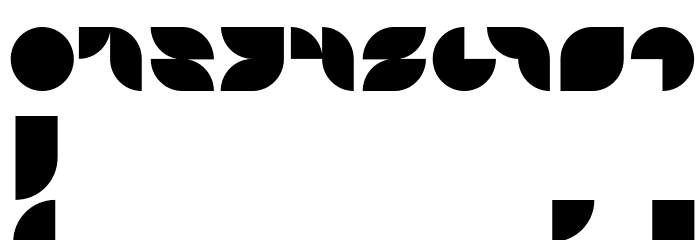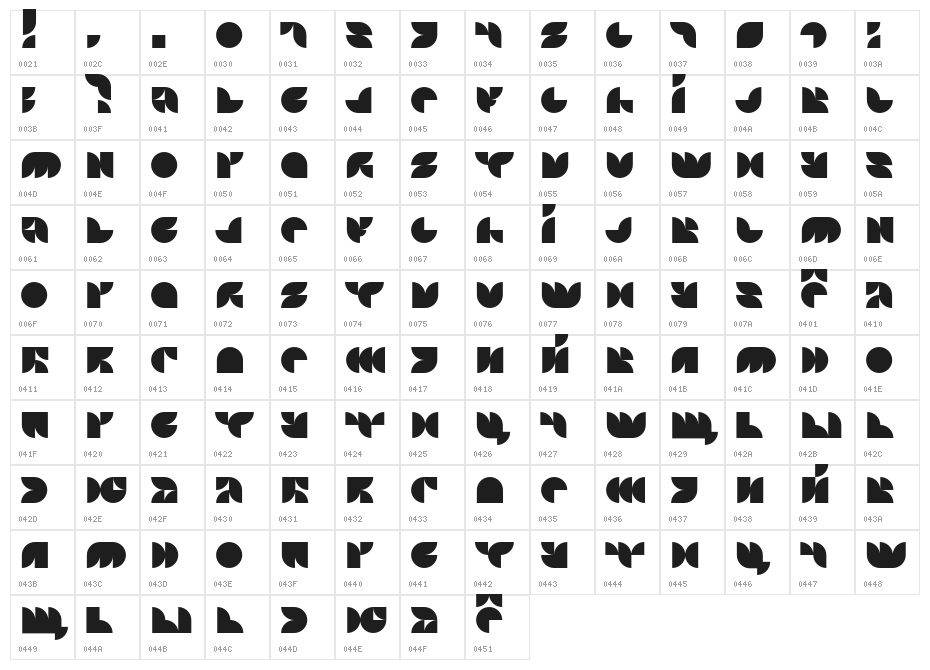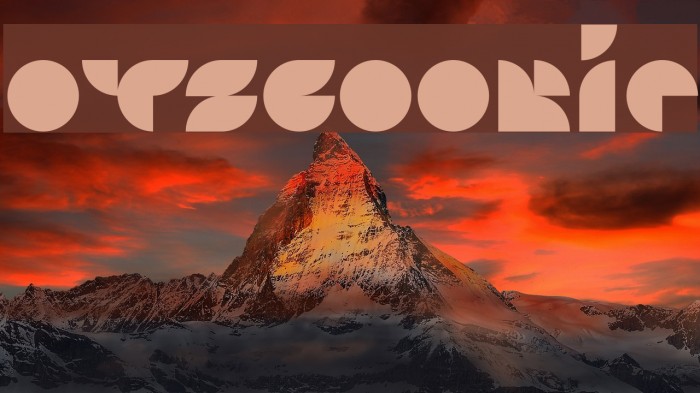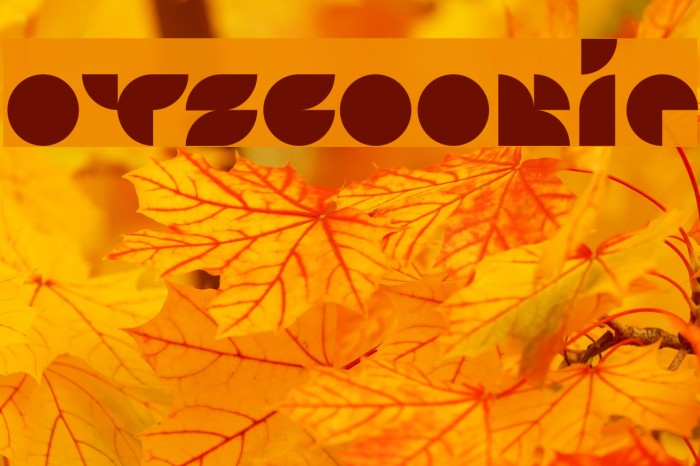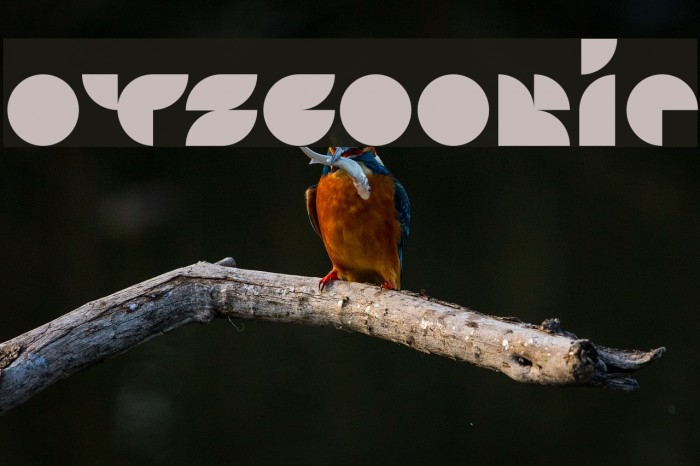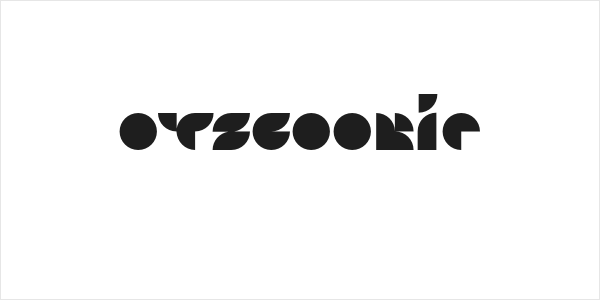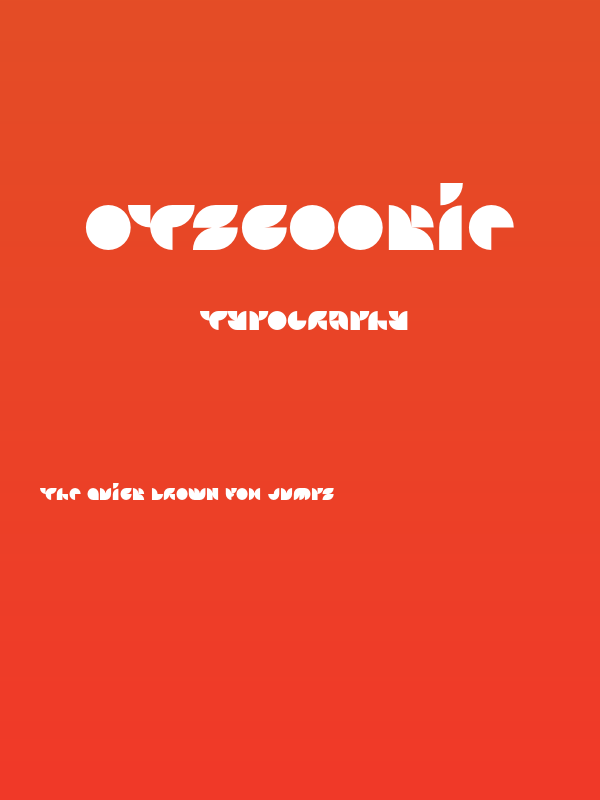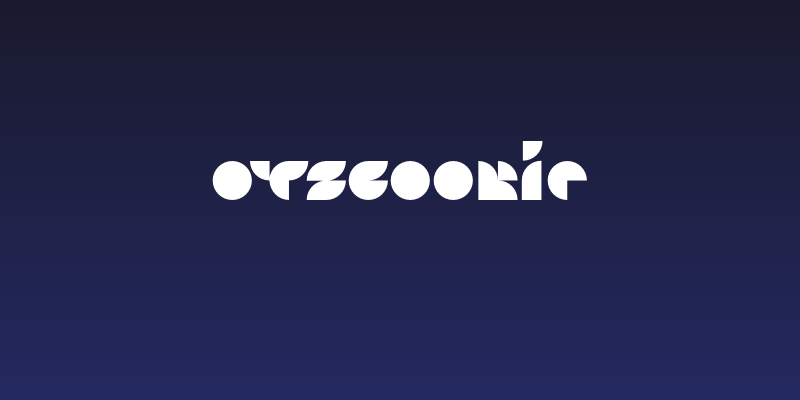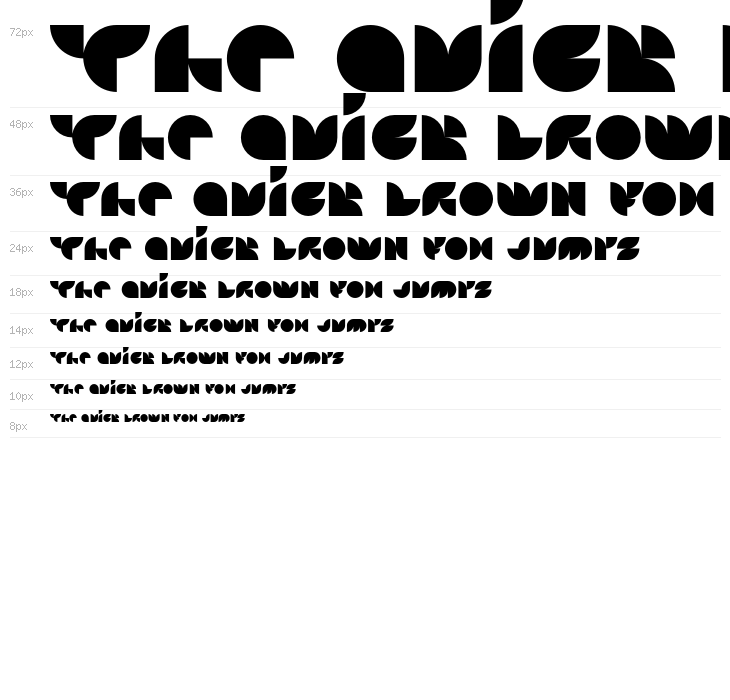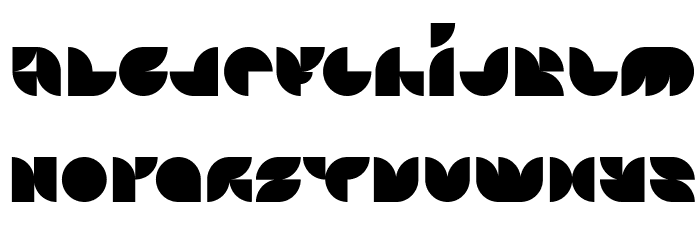
Otscookie Font
Otscookie Description
This font features a bold, geometric design with a futuristic and abstract aesthetic. The characters are composed of thick, solid shapes that create a sense of weight and presence. Each letterform is crafted with unique angles and curves, giving the font a distinctive and artistic appearance. The uppercase and lowercase letters maintain a consistent style, with the lowercase mirroring the uppercase in form. Numbers and special characters follow the same design principles, ensuring uniformity across all glyphs. The font's boldness and unique style make it suitable for creative and modern projects.
| Proposed Projects | Ideal for branding, posters, album covers, and any project requiring a modern, artistic touch. |